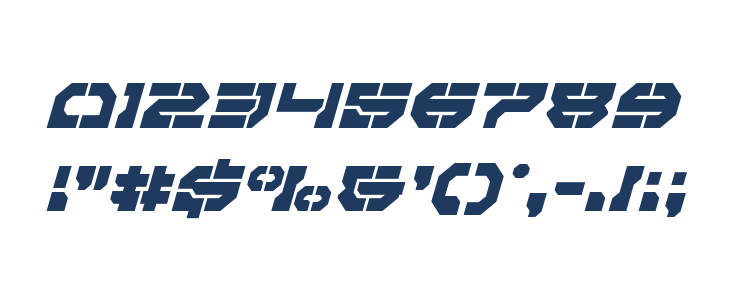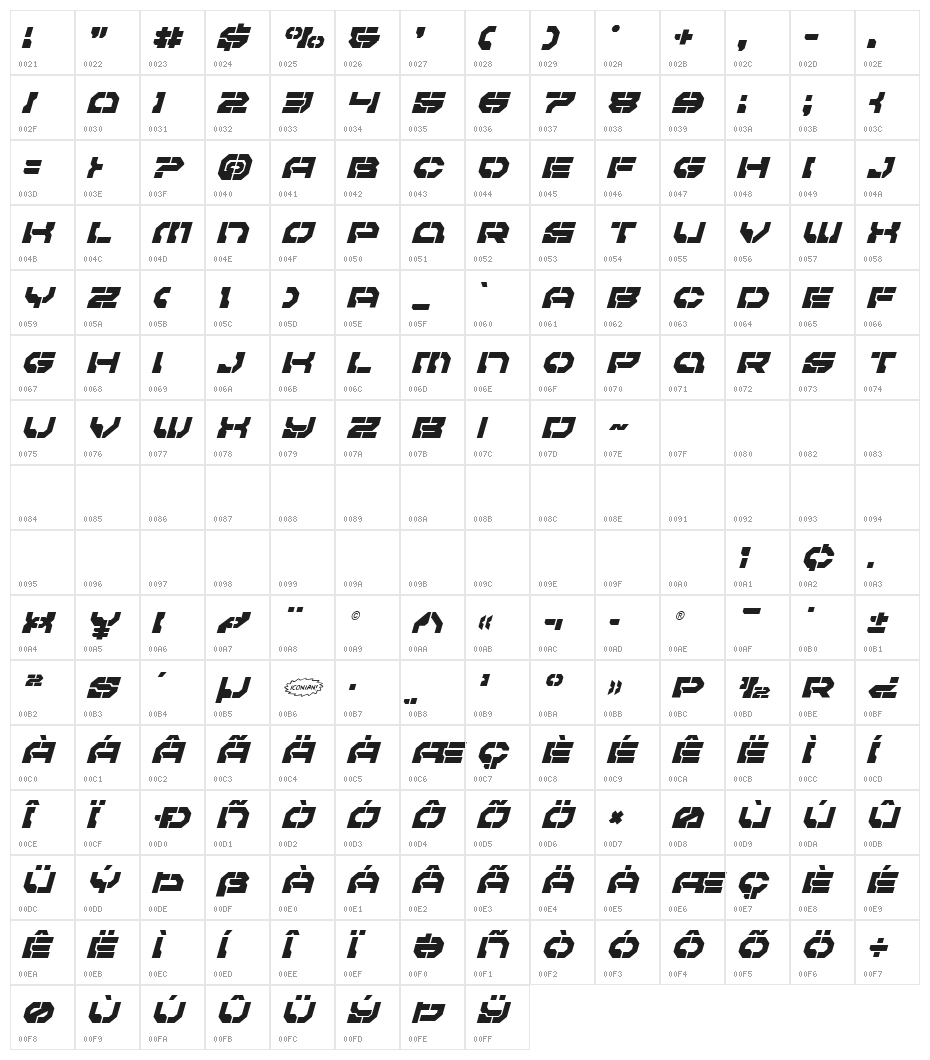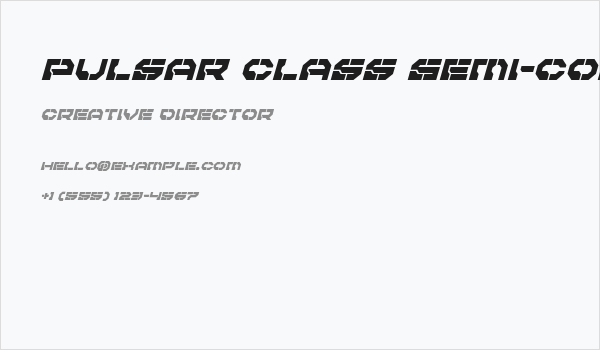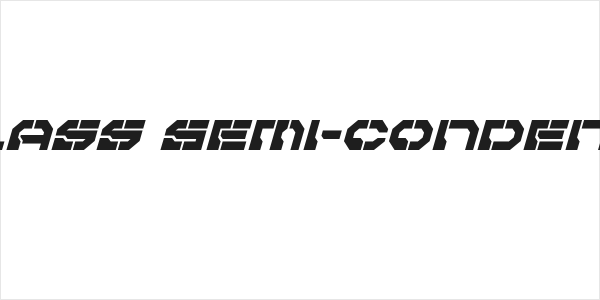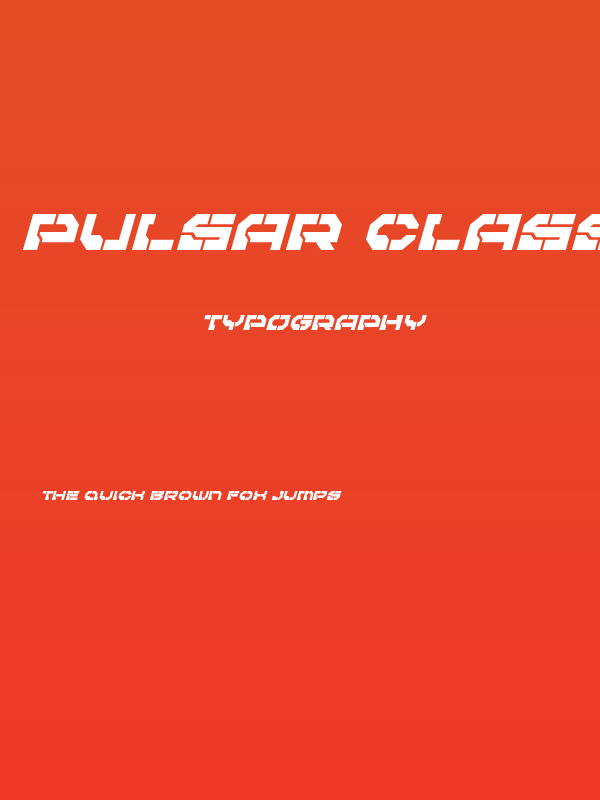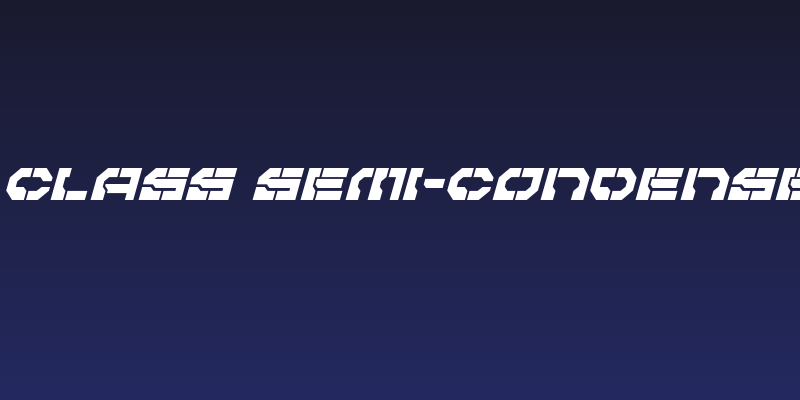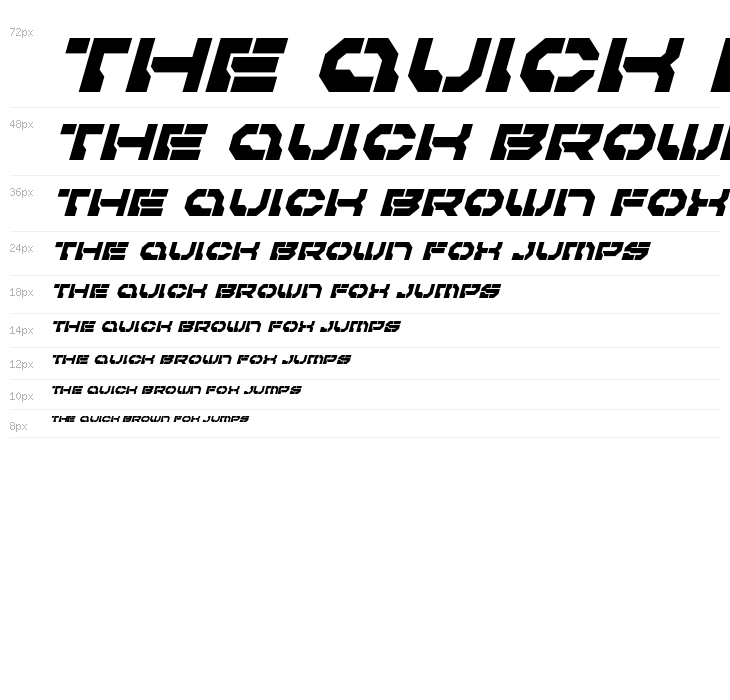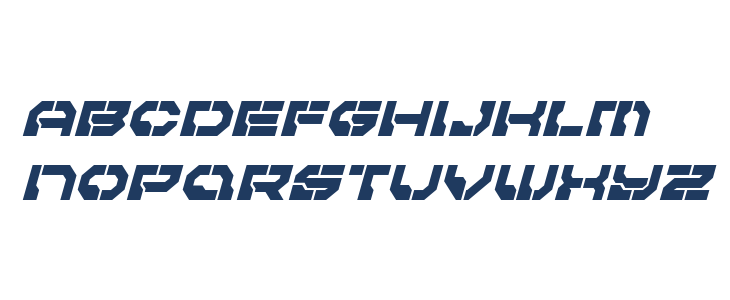
Pulsar Class Semi-Condensed Italic Font
Pulsar Class Semi-Condensed Italic Description
This font exhibits a futuristic and angular design, characterized by its sharp edges and geometric shapes. The letters are semi-condensed, giving a compact appearance while maintaining readability. The italic style adds a dynamic and forward-leaning aspect, enhancing its modern appeal. The bold weight ensures strong visibility, making it suitable for attention-grabbing headlines. The character spacing is tight, contributing to its cohesive and streamlined look. The high contrast in stroke thickness emphasizes the boldness and clarity of each character, making it stand out in various design contexts.